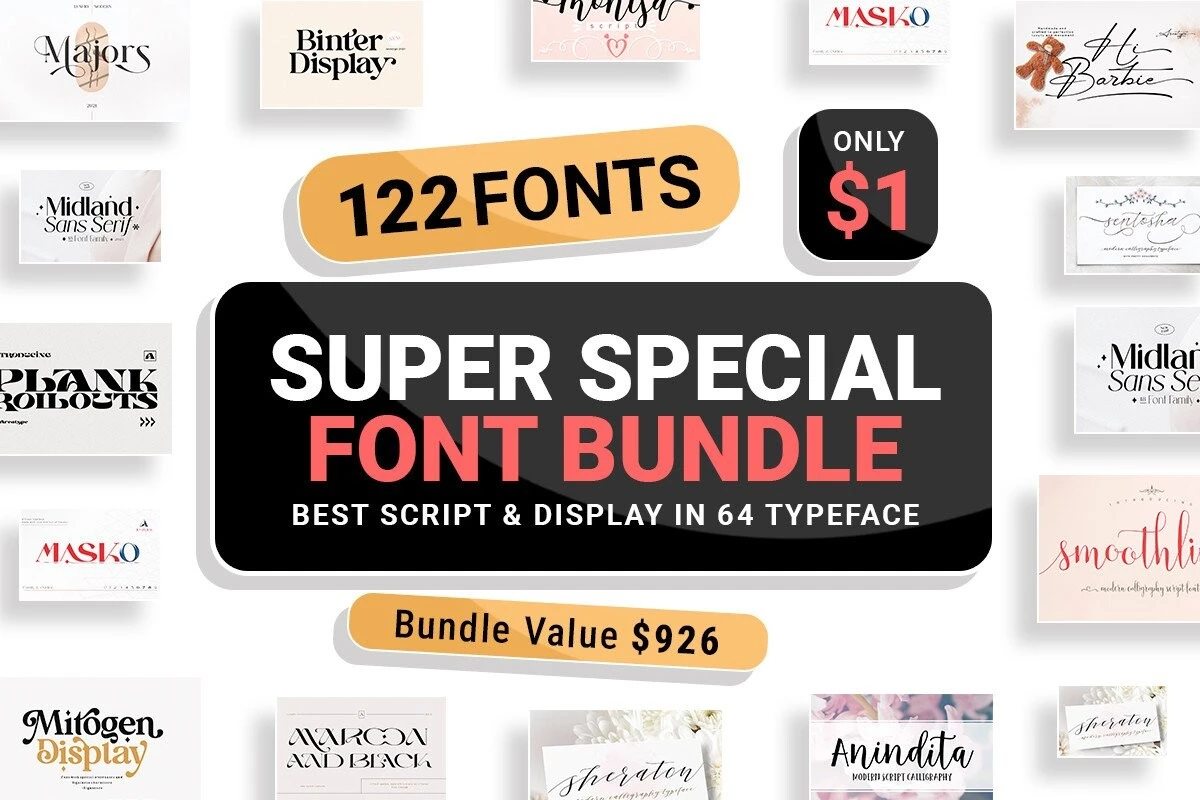
Super Special Font Bundle – 122 Premium Designer Fonts
Finding a font bundle that’s actually usable from start to finish is harder than it sounds. A lot of packs look impressive on the cover, then you open them and realize half the fonts feel nearly identical or only work for one type of project.
This one feels more thoughtfully put together.
Super Special Font Bundle includes 122 premium fonts across 64 typefaces, covering a pretty wide range of styles without feeling messy or overloaded. After going through the collection, it’s clear the focus leans toward practical design use — branding, packaging, logos, invitations, social media graphics, and modern print layouts.
What stood out first was the variety. You’re not just getting endless script fonts repeated in slightly different forms.
The bundle mixes:
- Elegant serif fonts
- Clean modern sans serifs
- Signature scripts
- Calligraphy styles
- Brush lettering
- Decorative display fonts
That balance makes the bundle genuinely flexible for real client work or content creation.